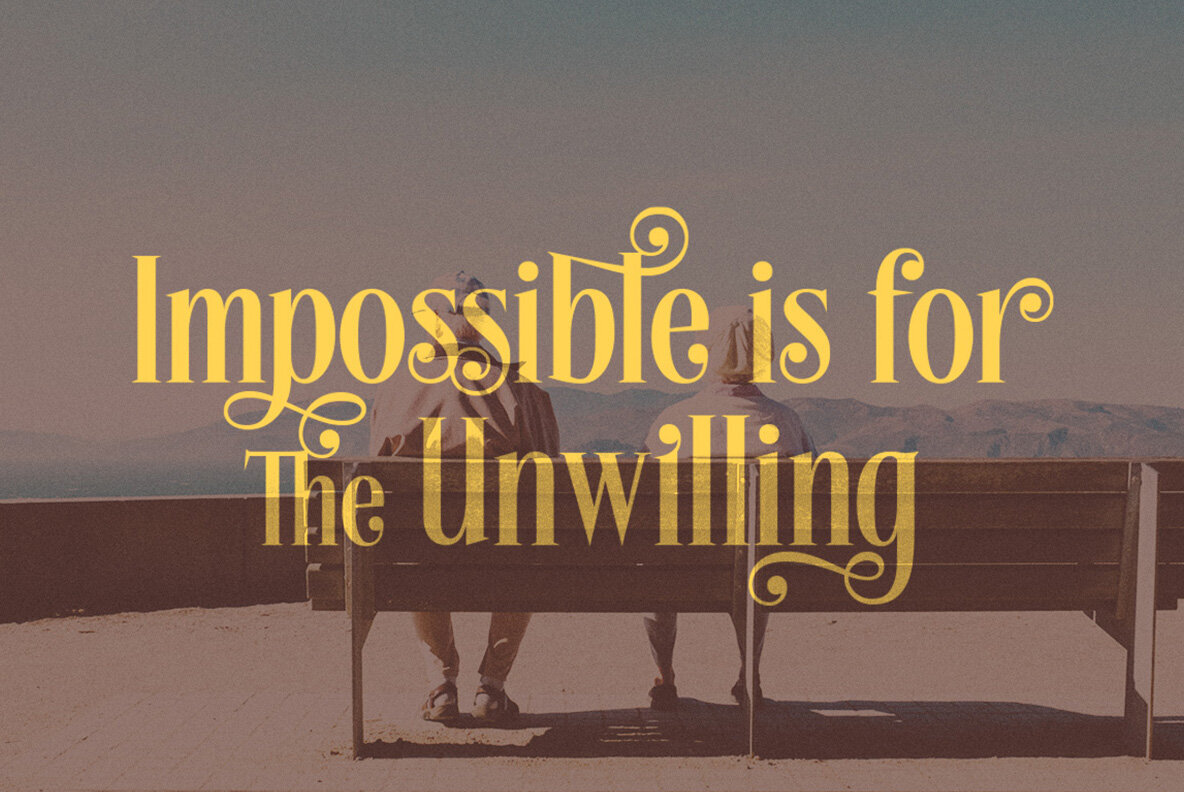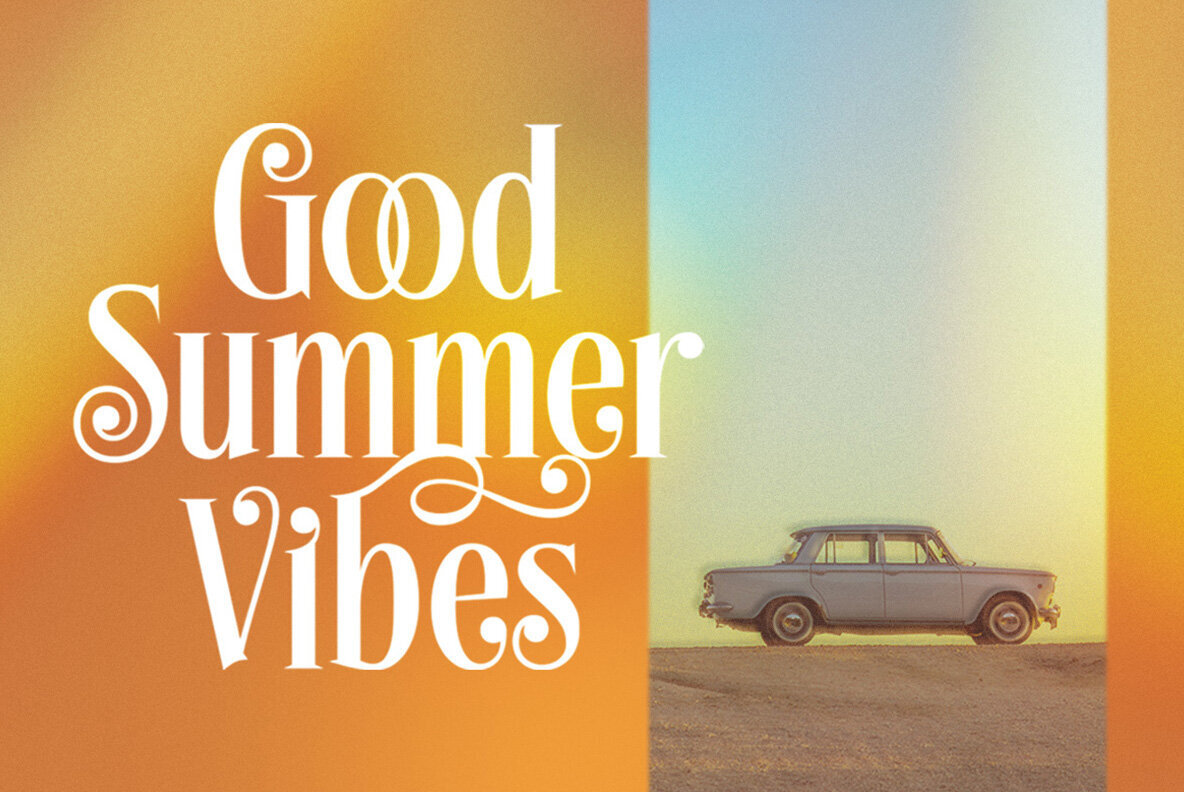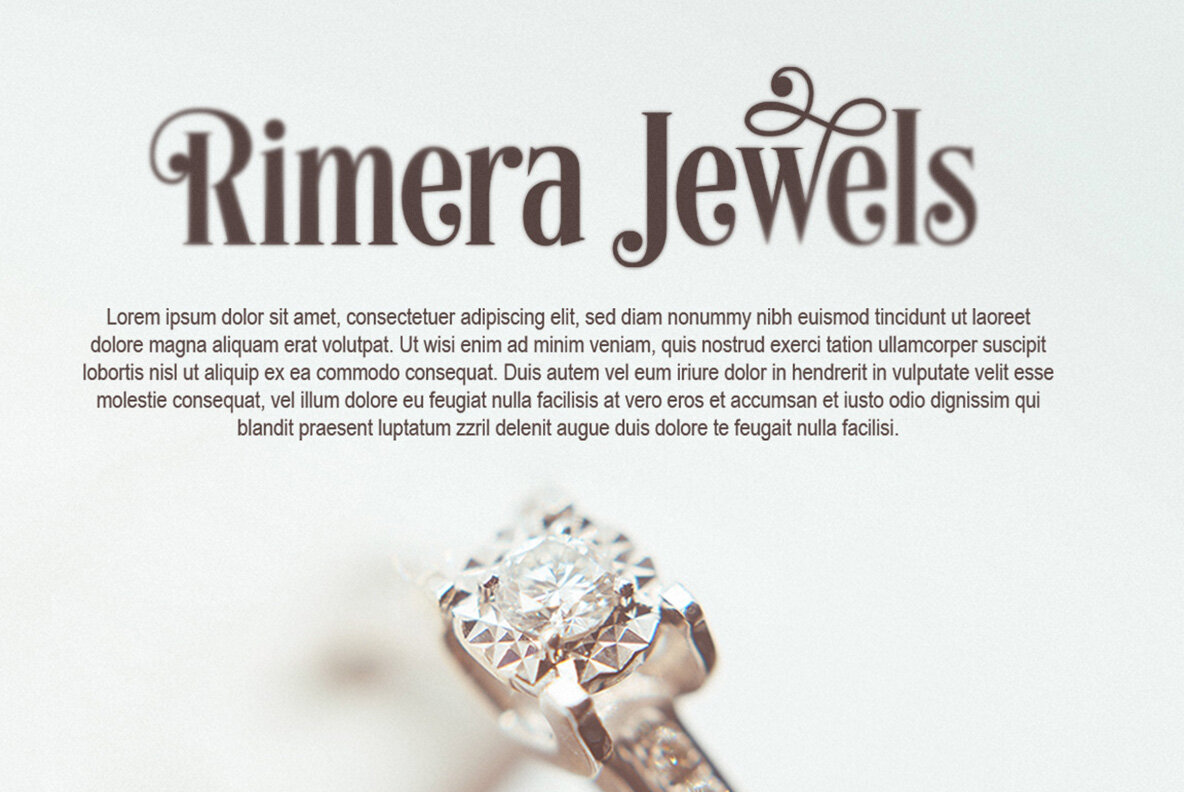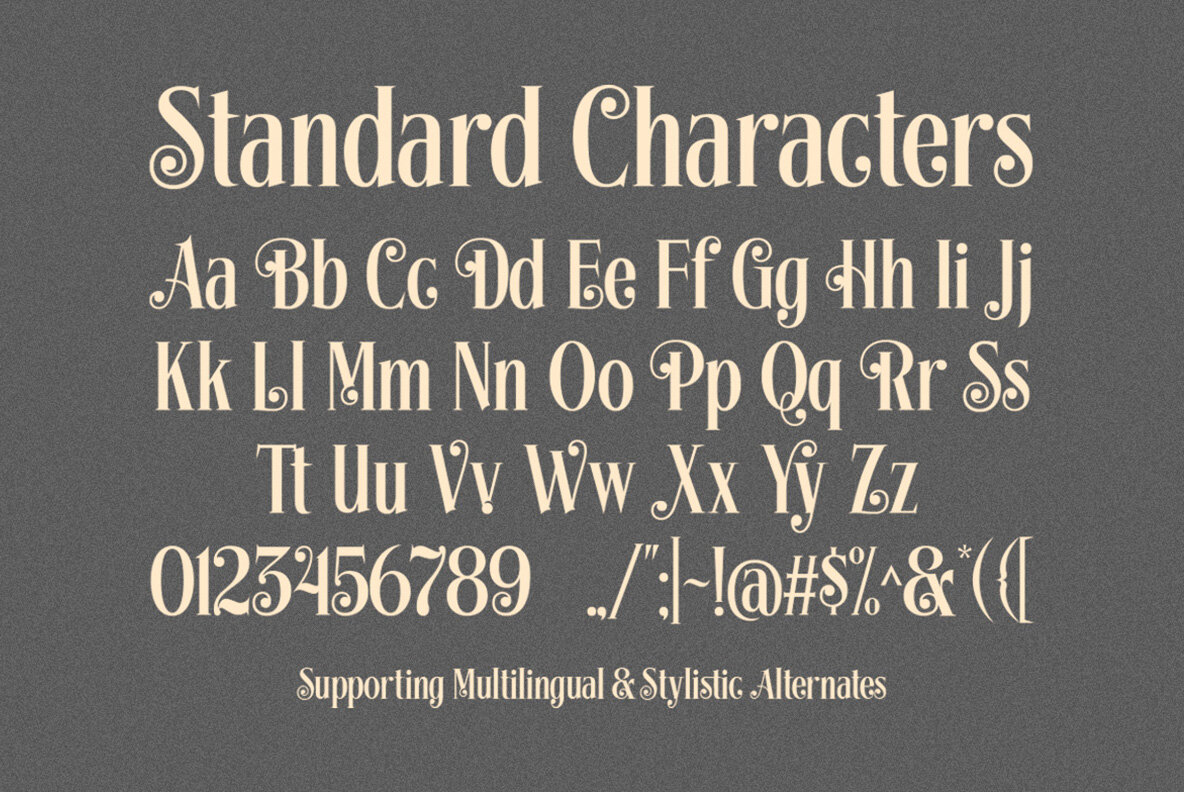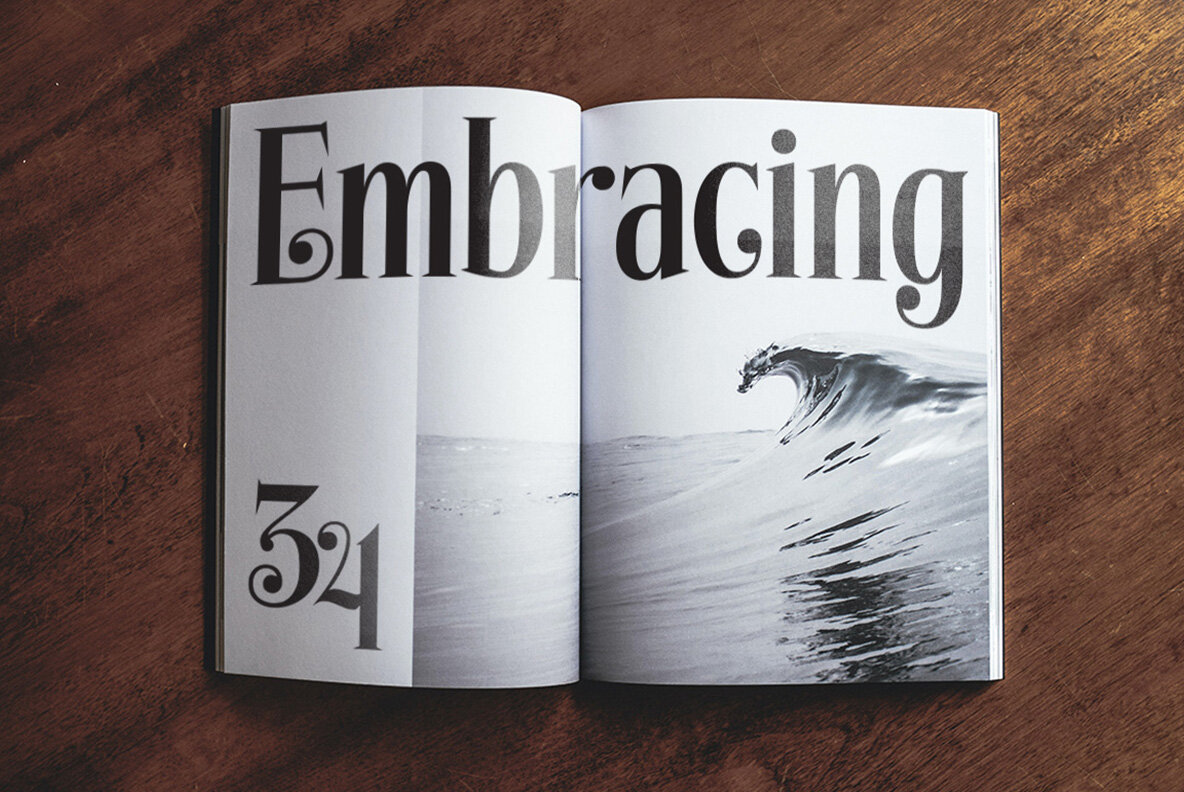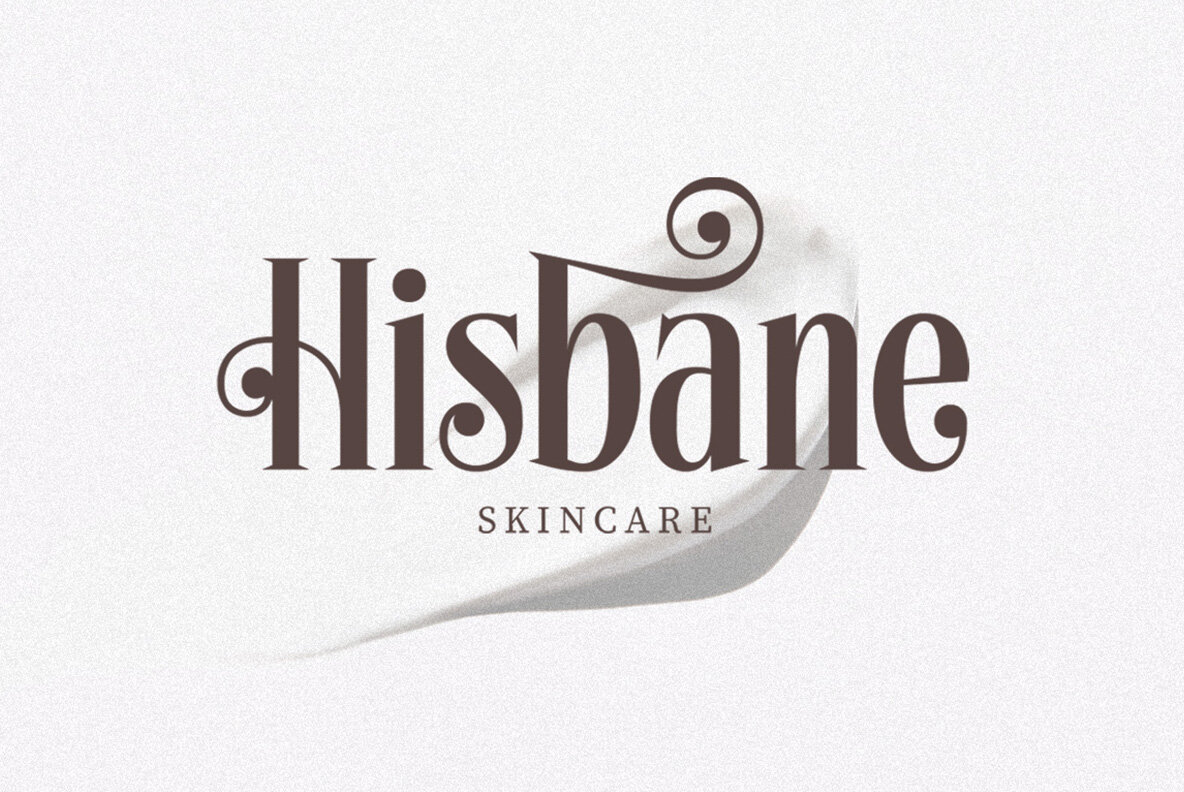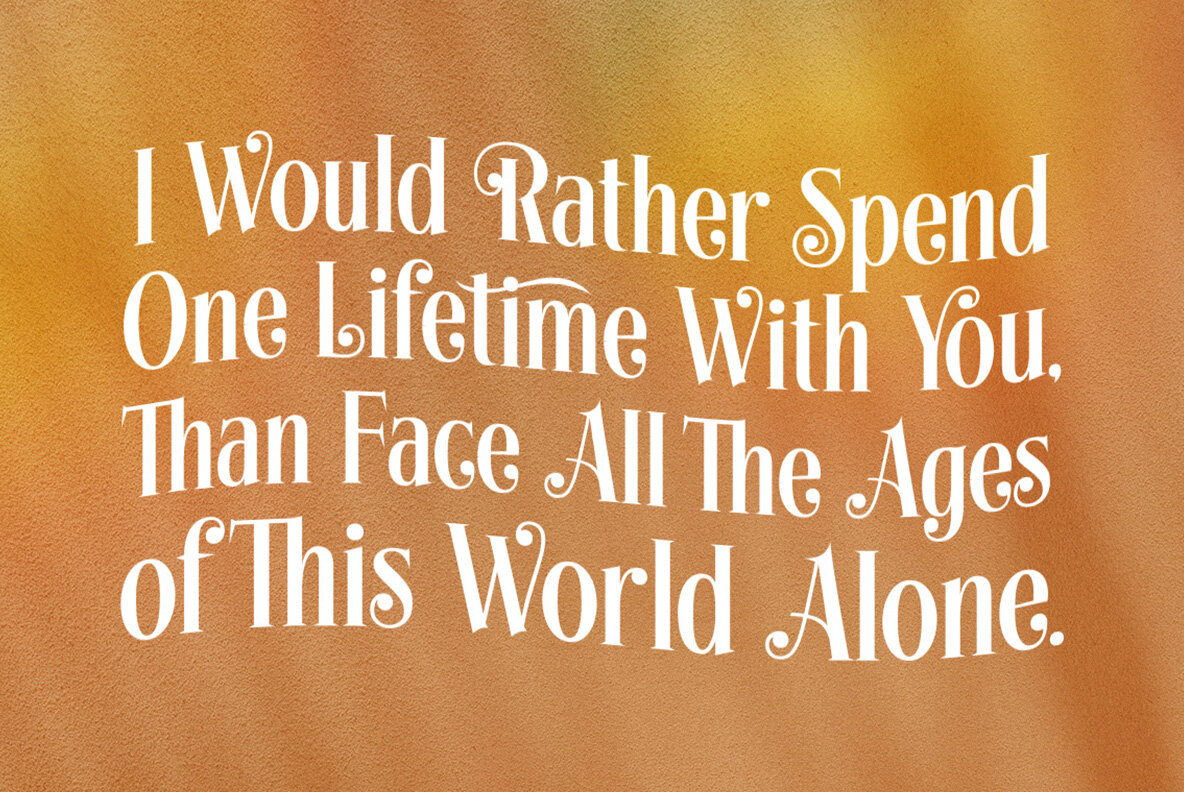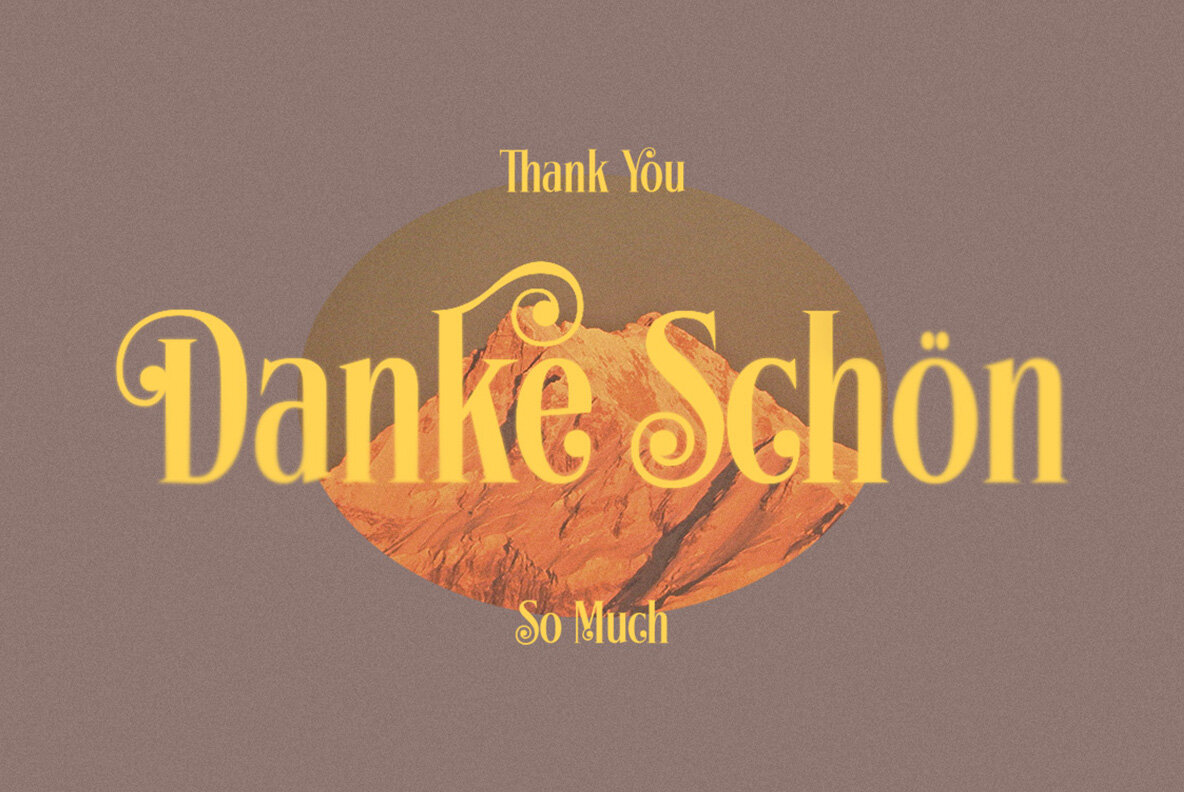
Whimster Glimpse Font
Whimster Glympse Regular
Whimster Glimpse from Letterhend Studio is a stylish and unique display font that effortlessly balances a vintage charm with contemporary elegance. Its distinct letterforms make it an ideal choice for a range of design projects, particularly those with a vintage or elegant theme. Beyond logos, this font finds its place in formal applications such as invitations, labels, magazines, and packaging. Whether it’s for branding in fashion and beauty, or creative endeavors in literature and stationery, Whimster Glimpse encapsulates versatility and sophistication. To fully experience the potential of Whimster Glimpse, we recommend programs that support OpenType features and glyph panels, such as Adobe applications and Corel Draw, where you can explore all available glyph variations.Whimster Glimpse: A Vintage-Inspired Display Font